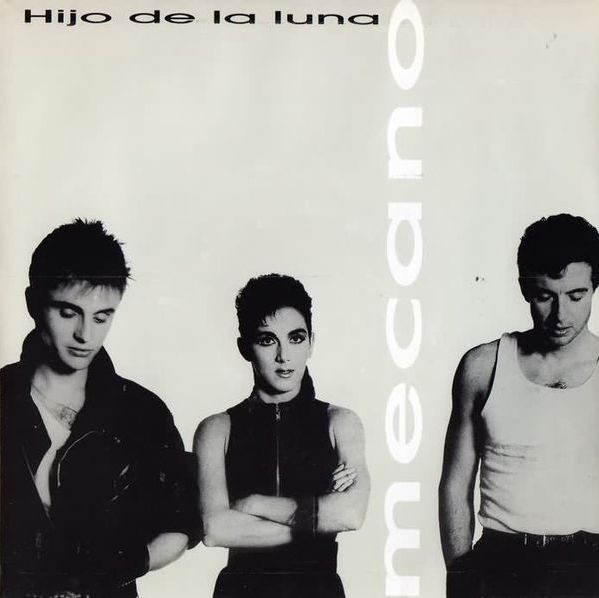
Obviously stretched sans serif typeface used on the cover of a single by Spanish pop band Mecano.
"Hijo de la luna" looks like a stretched Avant Garde.
"mecano" looks like a stretched Futura. Closest digital variation might be Futura PT.